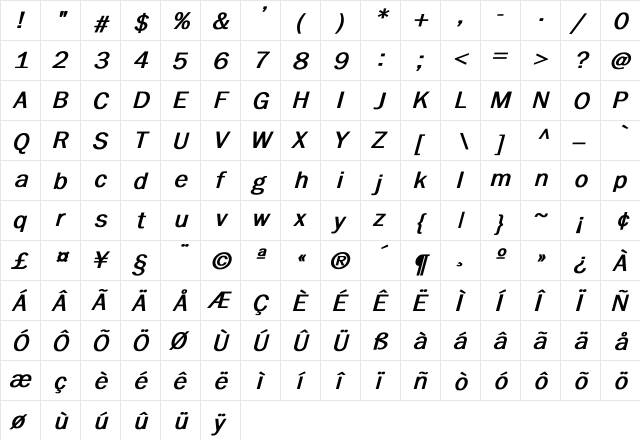
BillilinGothic Bold Italic
Design Context for BillilinGothic Typeface
BillilinGothic takes a clean, functional approach — its unadorned letterforms prioritise legibility and work reliably across screen and print environments. Its italic angle brings a sense of urgency and motion to the letterforms. The heavy weight commands attention and anchors typographic hierarchies.
Well-suited to navigation labels, product packaging, and anywhere legibility at scale is essential.
Font Pairing: Use BillilinGothic for headlines alongside a lighter-weight sans or serif for body copy to establish clear visual hierarchy.
Pro Tip: Use BillilinGothic for UI labels, navigation, and short-form body copy where clean legibility is the priority.